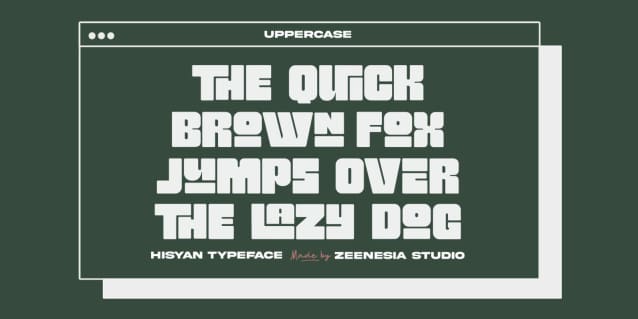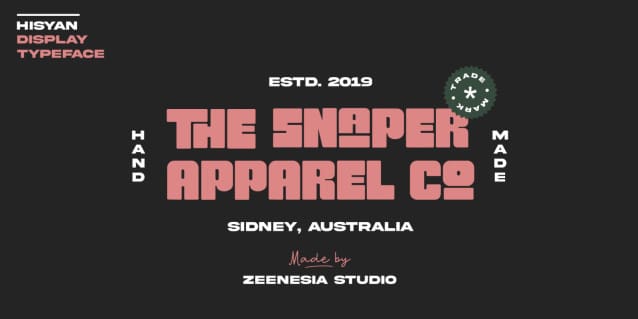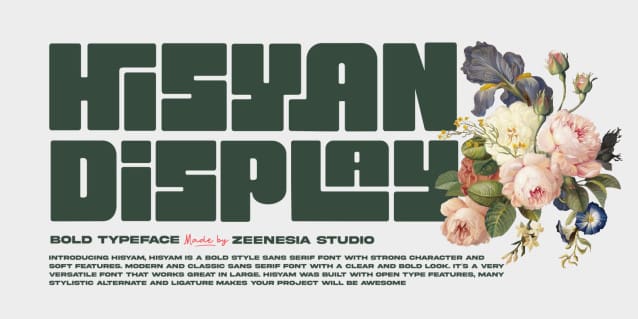
Hisyan Font
Hisyan Font is a Bold style sans serif font with strong character and soft features. modern and classic sans serif font with a clear and bold look. It’s a very versatile font that works great in large.
Hisyan was built with open Type features, many stylistic alternate and Ligature makes your project will be awesome